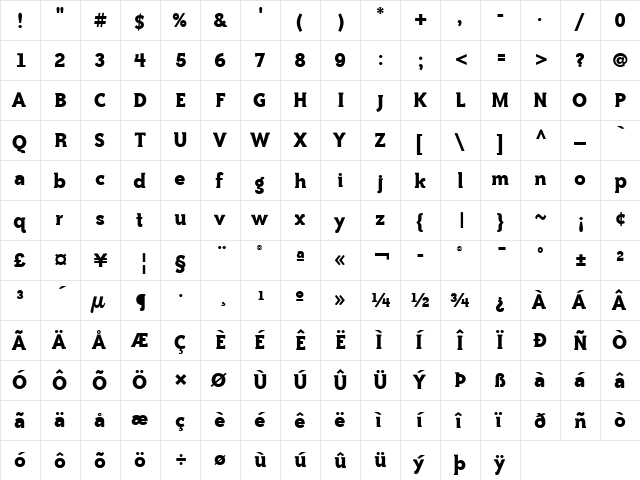
Bailey Quad ITC Bold
Design Context for Bailey Quad ITC Typeface
Bailey Quad ITC takes a measured approach to typography — its balanced proportions and neutral character make it a reliable workhorse for both digital and print work. The heavy weight commands attention and anchors typographic hierarchies.